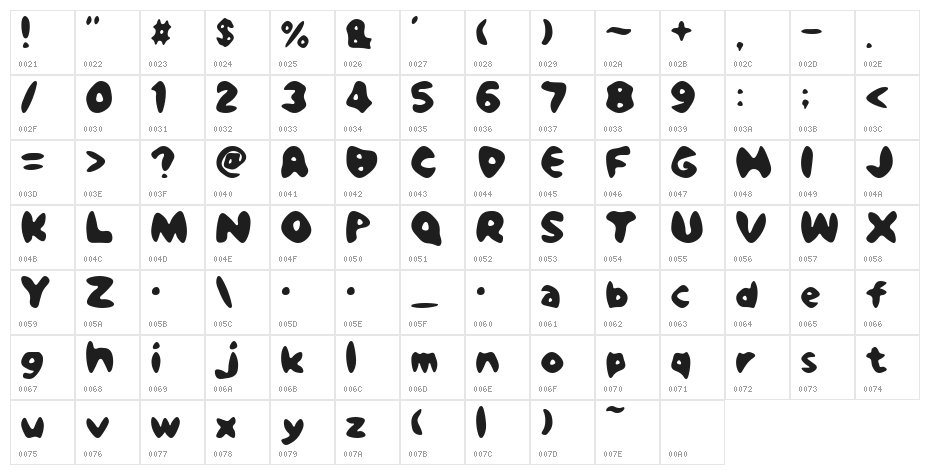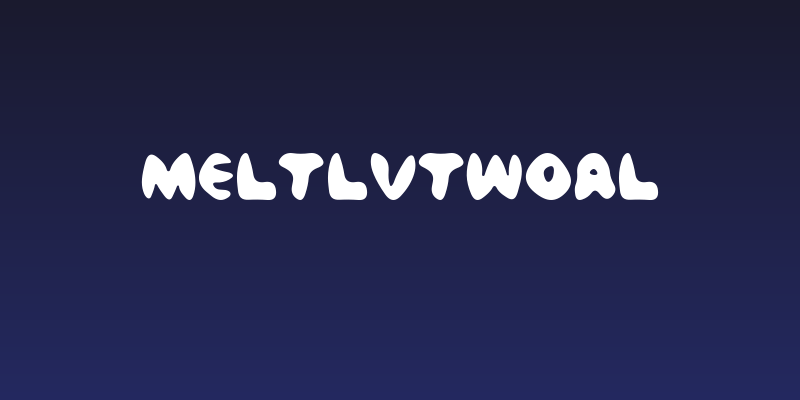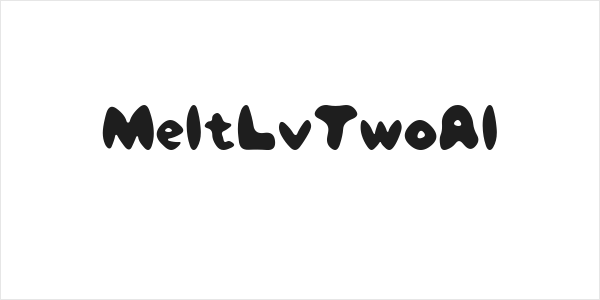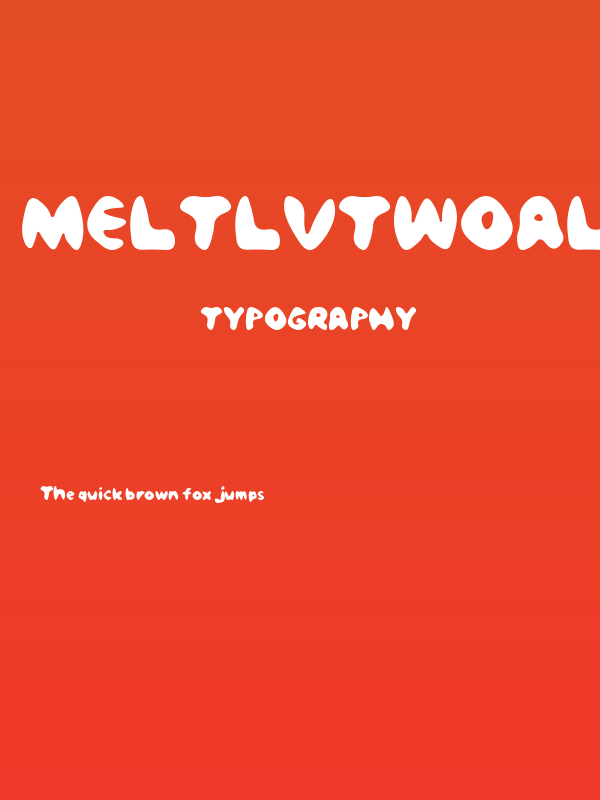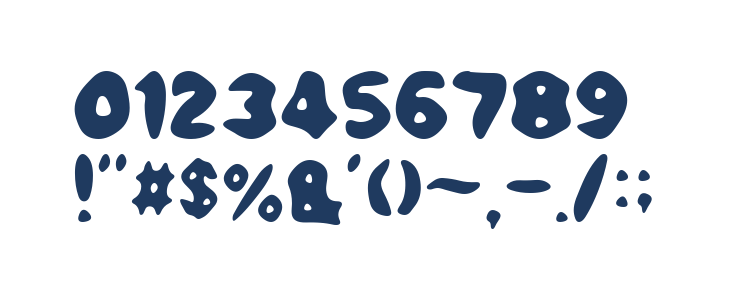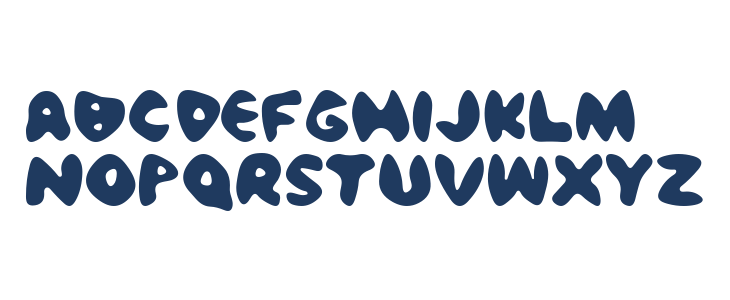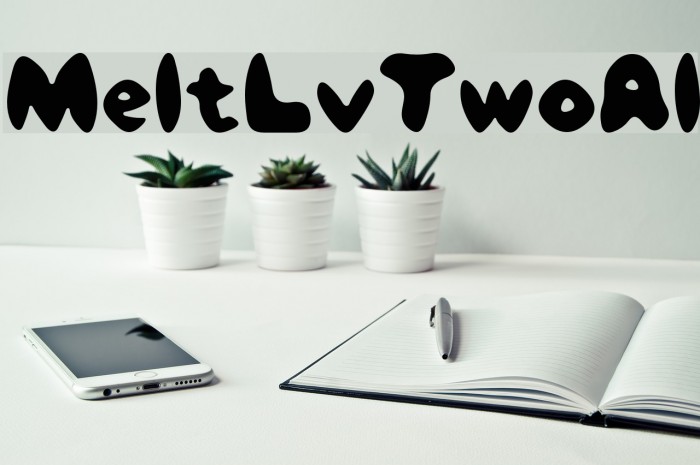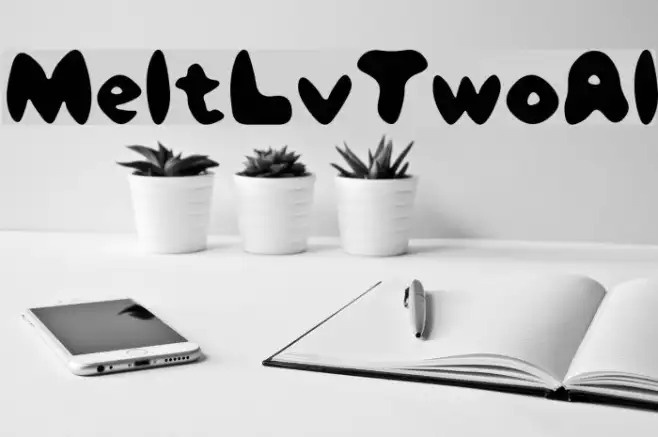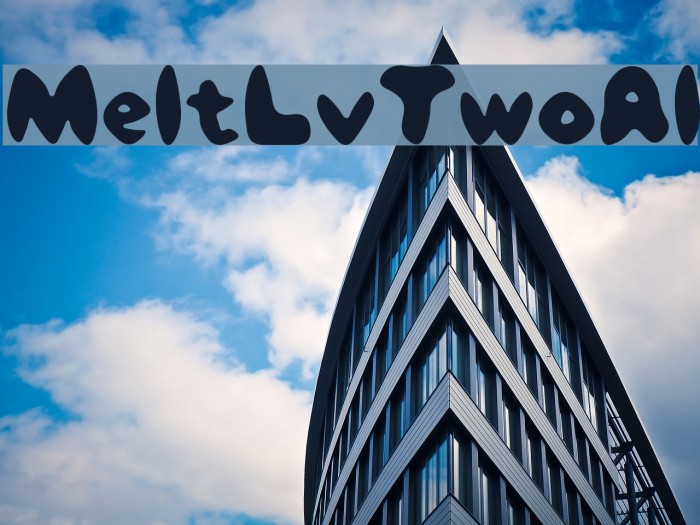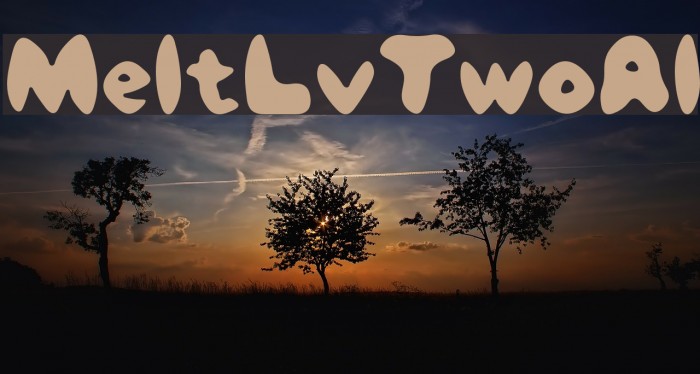
MeltLvTwoAl Font
MeltLvTwoAl Description
This font features a playful and bold design with rounded, blob-like characters that give it a unique and whimsical appearance. The letters are thick and have an organic, flowing shape, reminiscent of melting or liquid forms. The overall style is informal and fun, making it suitable for creative and casual applications. The characters are evenly spaced, with a consistent weight throughout, contributing to its cohesive look. The font includes a full set of uppercase and lowercase letters, numbers, and a variety of special characters, ensuring versatility in usage.
| Overall Style | Playful, Whimsical |
| Proposed Projects | Ideal for children's books, playful branding, party invitations, and creative posters. |